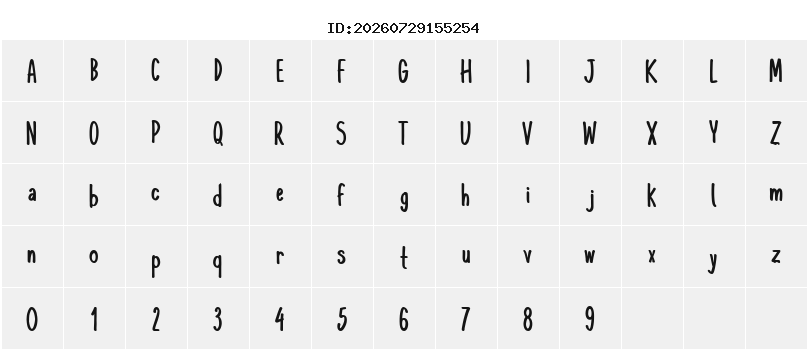
• Font Name: KomixCon
• Designer: William Medeiros
KomixCon.ttf is a modern, elegant sans-serif font designed for ultimate readability and visual harmony. Perfect for branding, headlines, web design, and print materials.